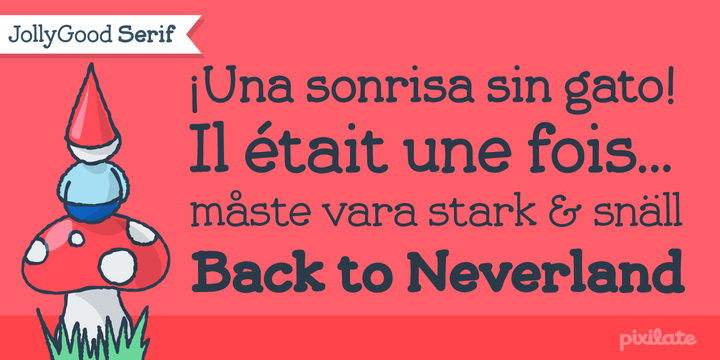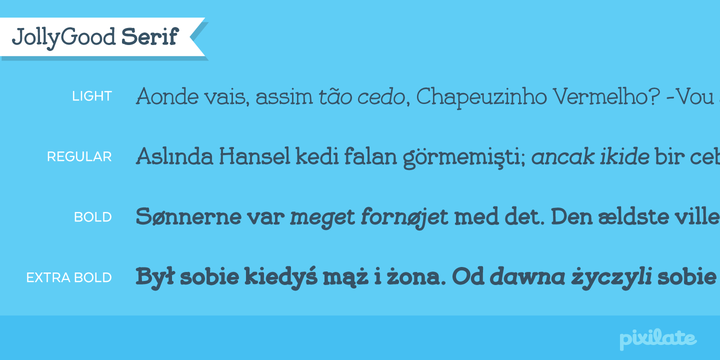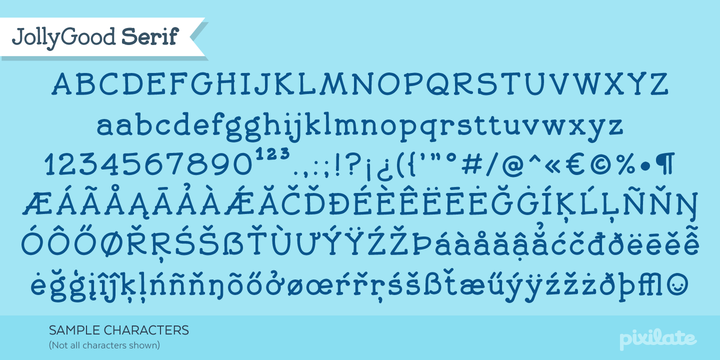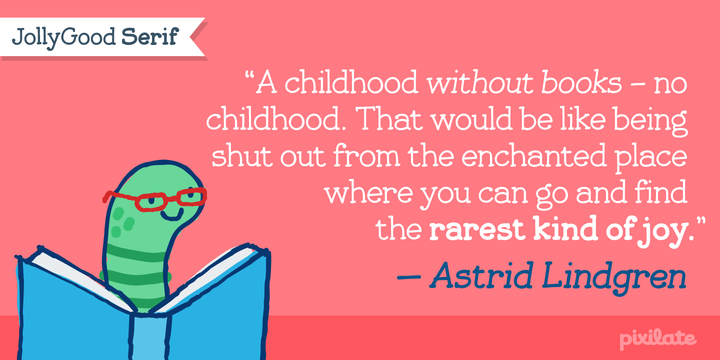
JollyGood Serif is another member of the JollyGood family. This is a hand drawn serif/typewriter font that can work both for comics or as a display face .
It is a complete family with 4 weights in regular and italic (8 fonts in total).
It has an amazing character set, with support for most latin languages, as well as extra characters and ligatures.